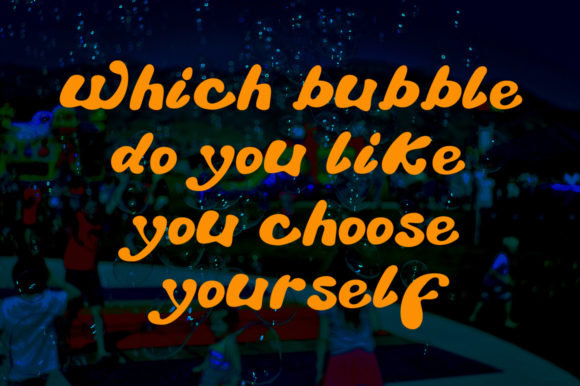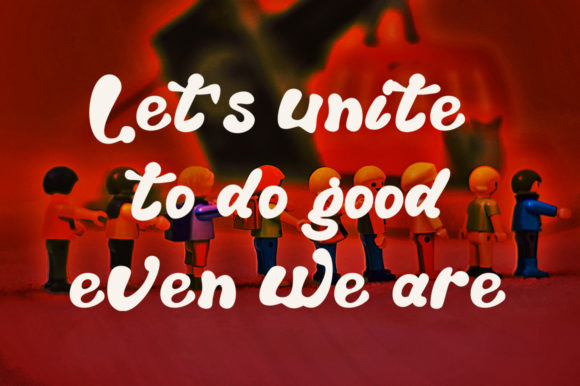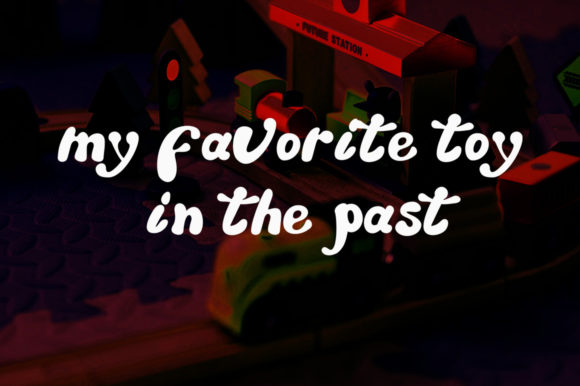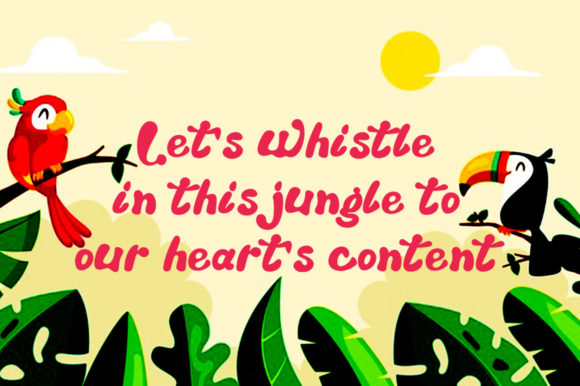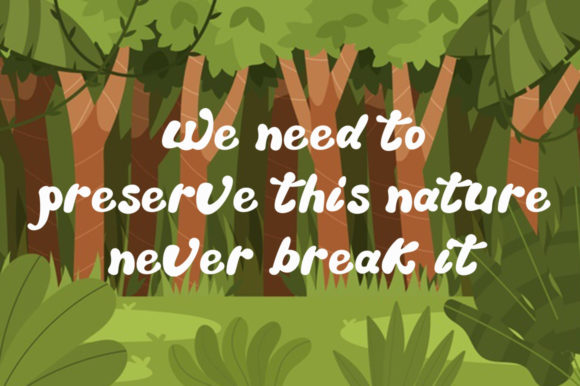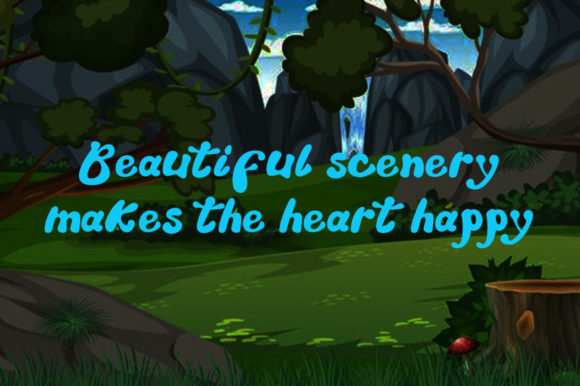
Introduction to Kochi Font
Imagine you’re a children’s book author, pouring your heart and soul into creating a magical world that transports young readers to a realm of wonder. As you design the cover, you search for the perfect font to capture the whimsy and charm of your story. That’s where the Kochi Font comes in – a delightful display font that’s as versatile as it is unique.
With its eclectic mix of character styles, Kochi Font is the ultimate design resource for creatives looking to add a touch of personality to their work. Whether you’re designing a comic book, a product label, or a branding campaign, this high-quality font is sure to impress. And the best part? It’s available for free download, complete with a transparent background, making it a seamless addition to any creative project.
Key Features of Kochi Font
- High-quality design resource suitable for various creative projects, including book covers, posters, and websites.
- Supports a wide range of languages, including English, making it a versatile choice for designers worldwide.
- Designed with a unique, elegant style that sets it apart from other fonts, making it an excellent choice for designers seeking a distinctive look.
Honest Review: Kochi Font
I recently came across the Kochi Font, a free design resource that has been gaining attention in the creative community. As a designer, I was excited to put it to the test and see if it lives up to the hype.
Here’s what I found:
- ✨ The font is incredibly versatile and can be used for a wide range of creative projects, from logos to web design.
- ✨ The high quality of the font is evident, with smooth lines and a transparent background that makes it easy to work with.
- ✨ The font is also very easy to customize, making it a great option for designers who like to experiment with different styles.
Overall, I’m impressed with the Kochi Font and think it’s a great option for designers who are looking for a high-quality, free design resource. Just be aware of the limitations and use it accordingly.
Kochi Font
Kochi Font is a high-quality design resource ideal for various creative projects. Its transparent background makes it easy to integrate into any design.
Tips for Getting the Most Out of Kochi Font
Experiment with different font sizes and styles to create a unique design. Combine Kochi Font with other design elements, such as images and graphics, to add visual interest.
Kochi Font is ideal for a variety of creative projects, including logos, brochures, and social media graphics. Its high-quality design makes it perfect for any project requiring a professional look.